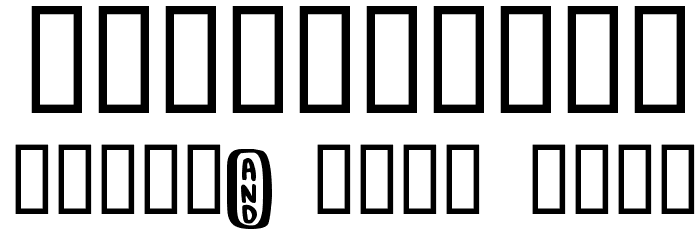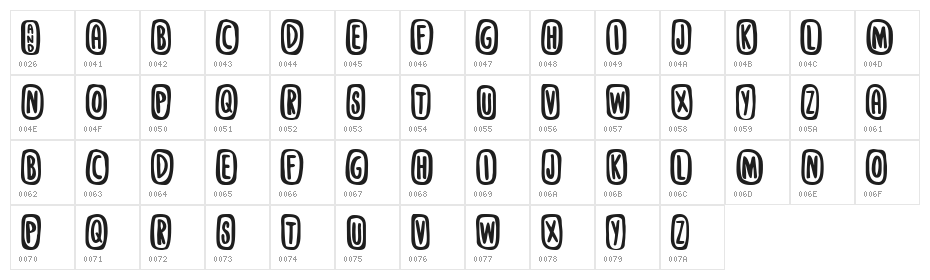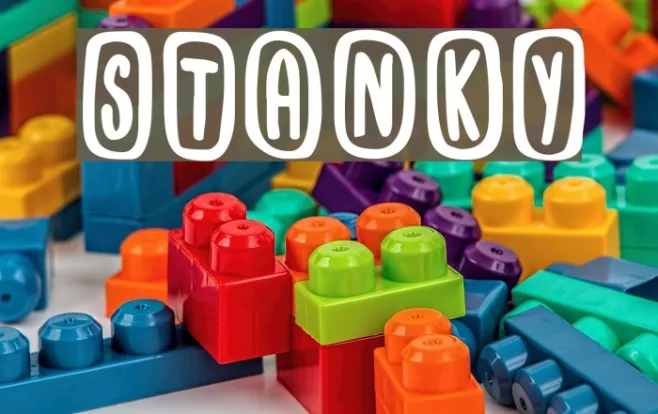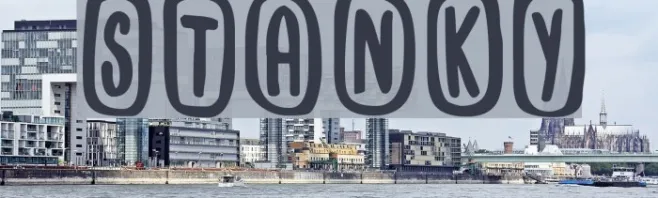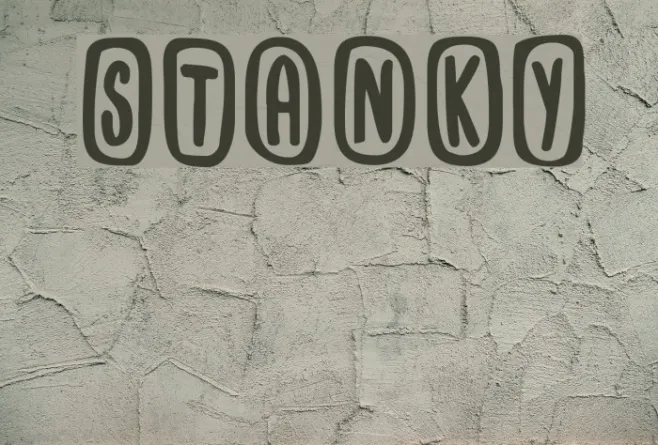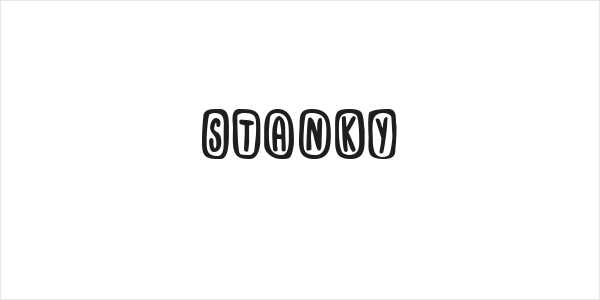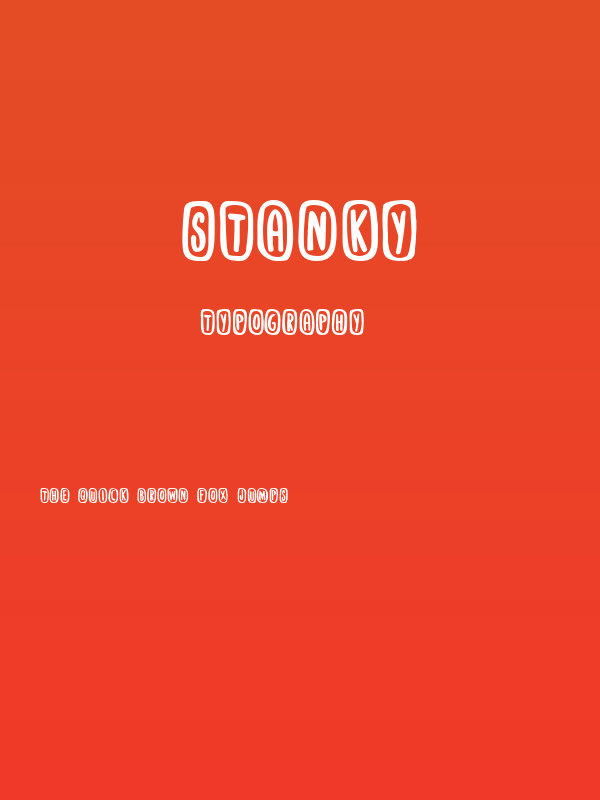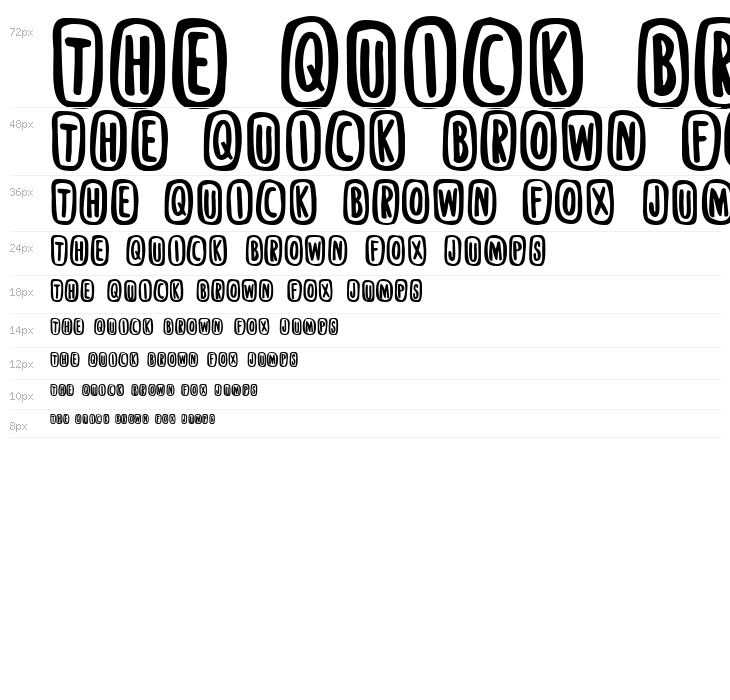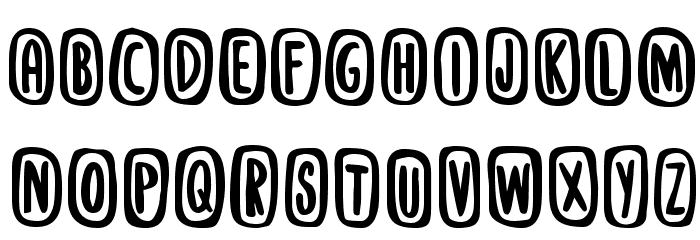
Stanky Font
Stanky Description
This playful and bold font features thick, rounded letters enclosed in a bubble-like outline, giving it a fun and cartoonish appearance. The uppercase and lowercase letters maintain a consistent style, with each character appearing as if it's been hand-drawn with a marker. The font's unique design is accentuated by its thick outlines, which create a strong visual impact. The characters are evenly spaced, contributing to its legibility despite the decorative style. This font is perfect for projects that require a touch of whimsy and creativity, making it ideal for children's books, comic strips, or playful branding.
| Overall Style | Playful, Cartoonish, Fun |
| Proposed Projects | Ideal for children's books, comic strips, playful branding, and creative posters. |